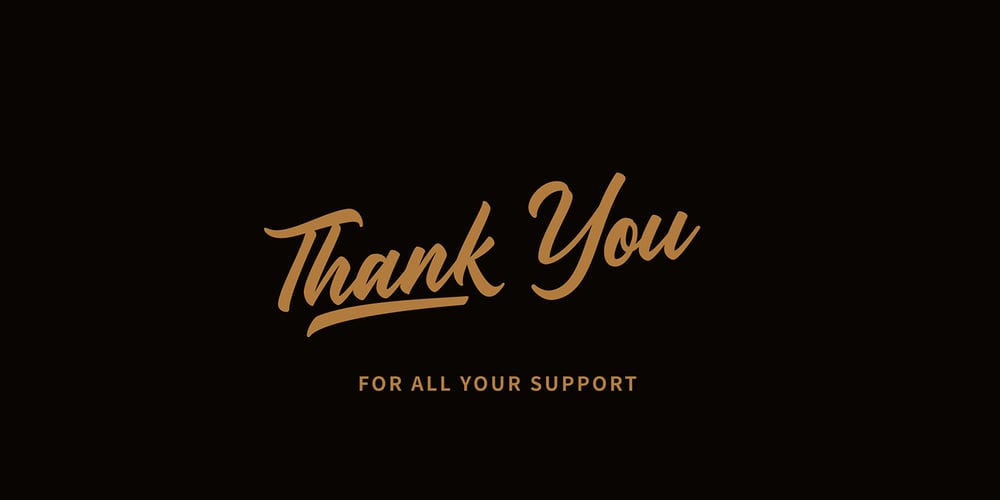
Brightsun
Brightsun font
Brightsun Font Family was designed by Zulhadi Usman and published by Jroh Creative. Brightsun contains 1 styles and family package options. Introducing Brightsun. This font was created to help you designing logotype or lettering style logo for your Brand or your clients, and you also can use it for designing all of the graphic stuff such as badge, sign, packaging, headline, title, T-shirt/apparel, Poster, etc. Brightsun was designed for personal characters such as strong, confidence, dynamic, readable, energic, dynamic, etc. Strengthen Typeface containing 443 Glyphs with 241 alternative characters to help you create an authentic lettering style. You can get all the glyphs by The Glyphs Panel. Available for: – Adobe Illustrator, – Adobe InDesign, – Adobe Photoshop CC (latest version) Support: If you have any question, don’t hesitate to contact support@jrohcreative.com Thanks for loving our items 🙂